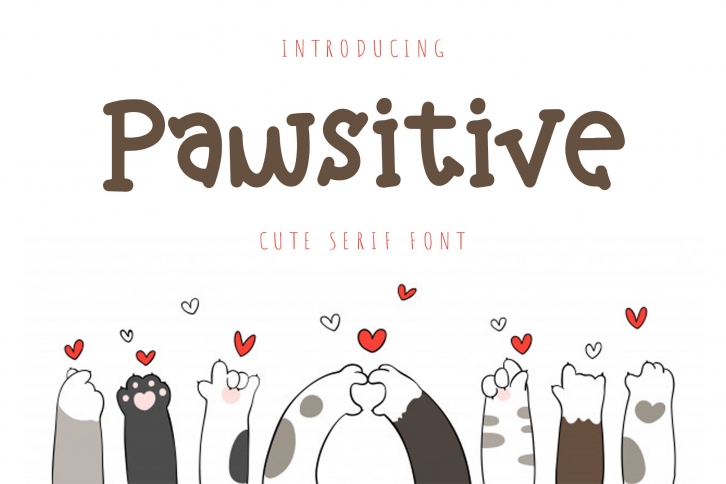
Pawsitive is a gorgeous font that was realeased on June 8, 2021. The font can be used in many style contexts and design environments. Perfect for invitations, magazines, websites, logos, and more! It was designed by dapiyupi and the file size is 10.17 MB. Thanks for checking out this font!